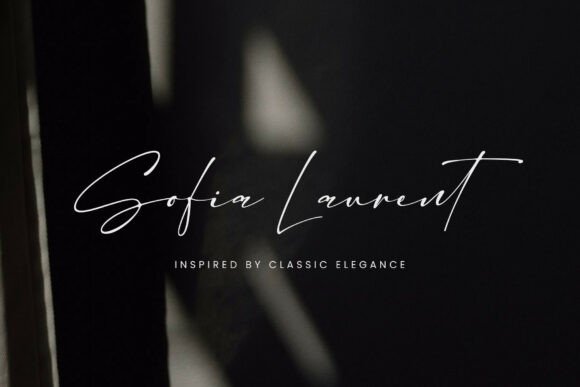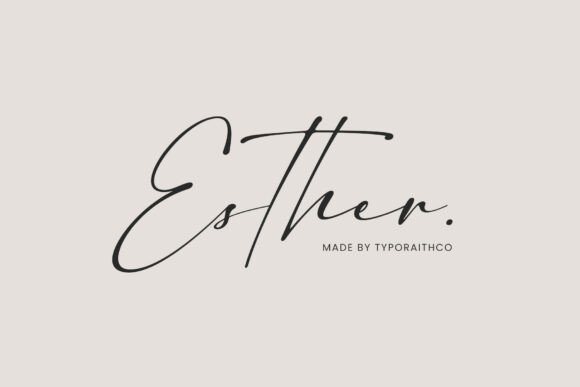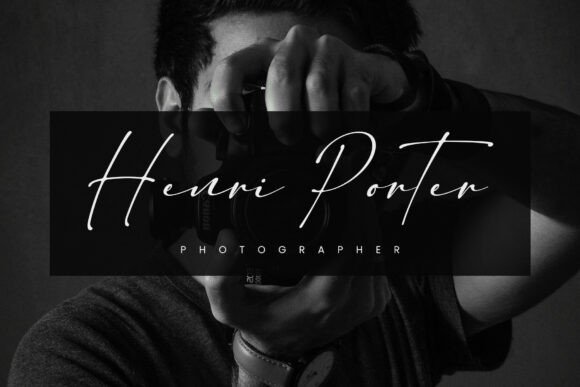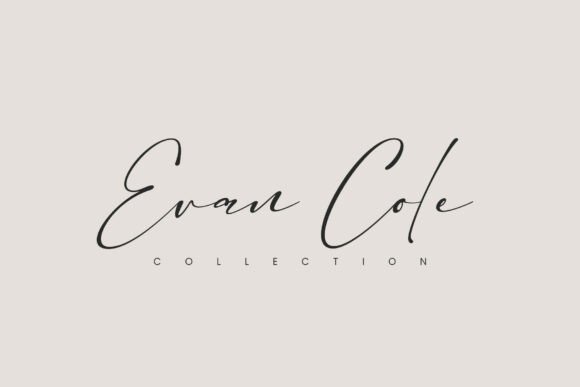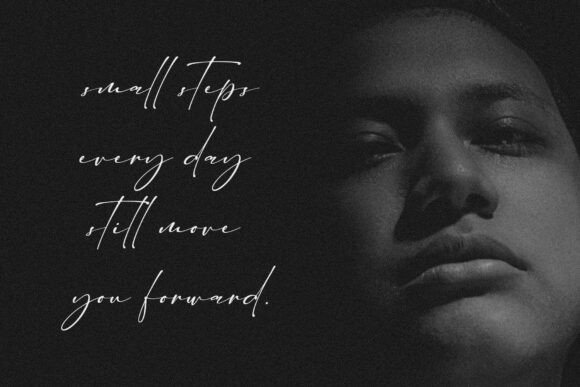
Evanthia Font: Elevate Your Designs with Elegance and Sophistication
In the world of typography, a well-crafted font can make all the difference in elevating your creative projects from ordinary to extraordinary. Introducing Evanthia, a modern elegant signature font designed to bring a refined, handwritten touch to your designs. Inspired by natural pen strokes and contemporary luxury aesthetics, Evanthia is the perfect choice for designers, entrepreneurs, and creatives who want their work to feel exclusive, graceful, and memorable.
The Essence of Evanthia
Evanthia is more than just a font – it’s an experience. With its smooth curves and balanced letterforms, this font works beautifully for a wide range of applications, from logos and branding to wedding designs, fashion labels, social media content, and editorial layouts. Whether you’re looking to create a sophisticated brand identity or add a touch of elegance to your marketing materials, Evanthia delivers a clean signature look while maintaining a premium and timeless feel.
Evanthia’s design is characterized by its:
- Smooth curves: Evanthia’s curves are meticulously crafted to create a sense of fluidity and movement, giving your designs a dynamic and sophisticated feel.
- Balanced letterforms: Each letter is carefully designed to ensure perfect balance and harmony, making Evanthia a joy to read and behold.
- Natural pen strokes: Inspired by the imperfections of handwritten writing, Evanthia’s strokes have a natural, organic feel that adds warmth and personality to your designs.
- Contemporary luxury aesthetics: Evanthia’s design is influenced by the sleek, high-end look of luxury brands, making it perfect for designers who want to create sophisticated and high-end designs.
Perfect for a Range of Applications
Evanthia’s versatility makes it an excellent choice for a wide range of design projects, including:
- Logos and branding: Create a lasting impression with a custom logo that exudes elegance and sophistication.
- Wedding designs: Add a touch of romance and whimsy to your wedding stationery, invitations, and decorations.
- Fashion labels: Elevate your fashion brand with a font that embodies style, luxury, and refinement.
- Social media content: Stand out on social media with eye-catching graphics and typography that showcases your brand’s personality.
- Editorial layouts: Add a touch of sophistication to your publications, magazines, and newspapers with Evanthia’s elegant typography.
Why Choose Evanthia?
With so many fonts available, why choose Evanthia? Here are just a few reasons why designers, entrepreneurs, and creatives are falling in love with this modern elegant signature font:
- Exclusivity: Evanthia’s unique design ensures that your work stands out from the crowd and feels exclusive and high-end.
- Grace: Evanthia’s elegant curves and balanced letterforms create a sense of refinement and poise, perfect for designers who want to add a touch of sophistication to their work.
- Memorability: With Evanthia, you can create designs that are not only beautiful but also memorable, making a lasting impression on your audience.
In conclusion, Evanthia is more than just a font – it’s a design experience. With its smooth curves, balanced letterforms, and natural pen strokes, this font is perfect for designers, entrepreneurs, and creatives who want to add a touch of elegance and sophistication to their work. So why wait? Download Evanthia today and start creating designs that are truly unforgettable.